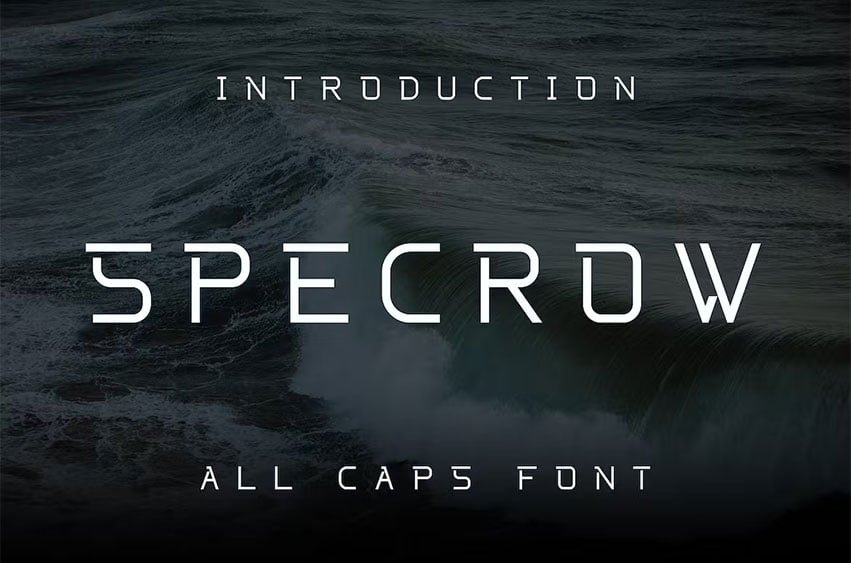
Specrow Font is sans serif font with a bold style. Perfectly suited on print/screen; it can be used freely for logotypes, e-books and mobile applications and is especially food for headlines, banners, posters, websites, magazines, etc.